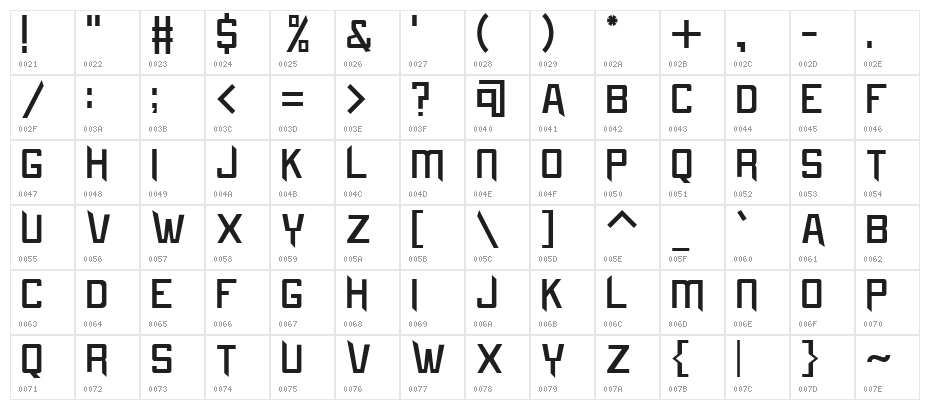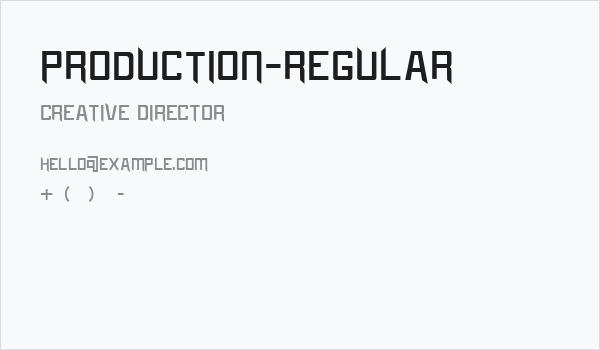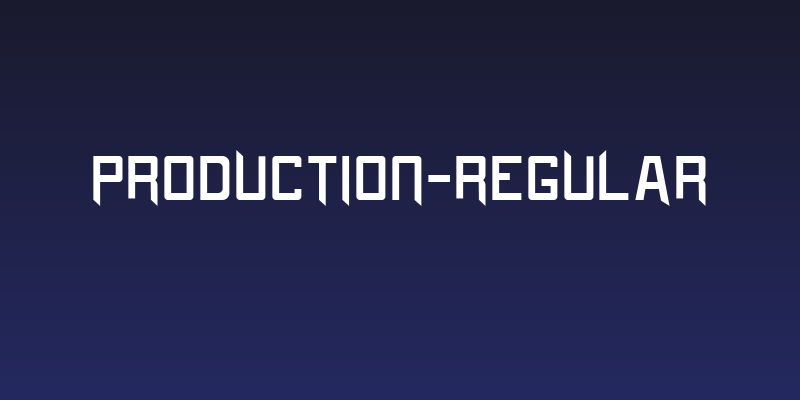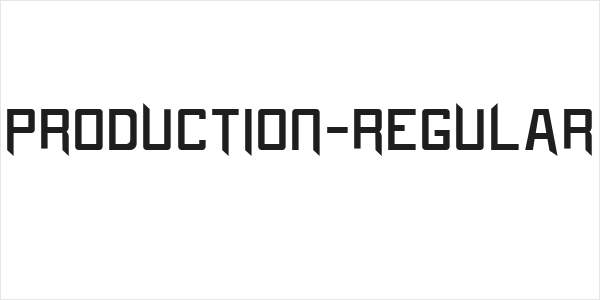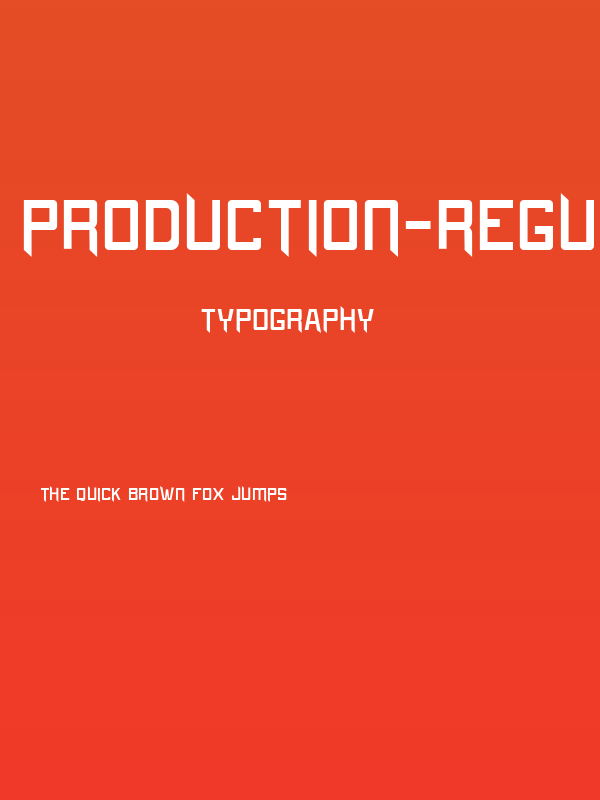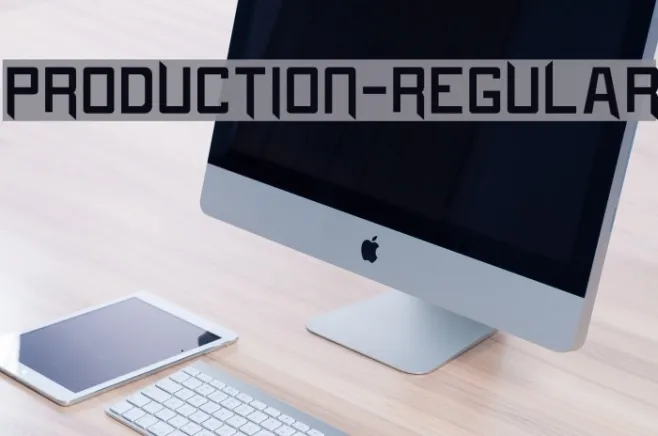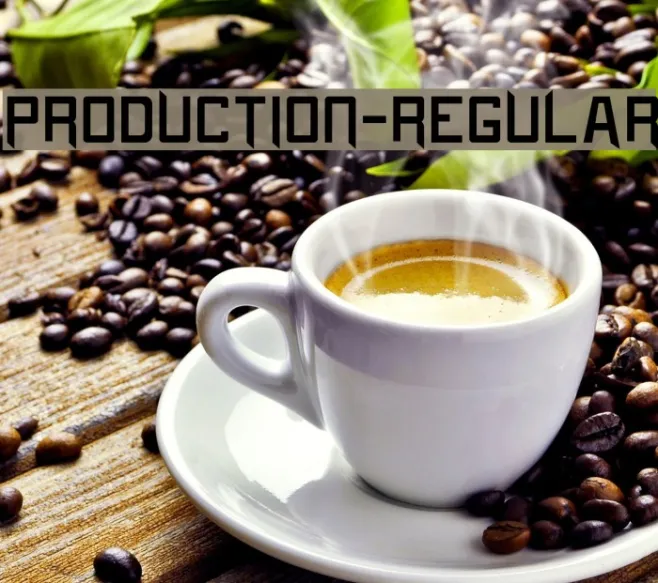
Production-Regular Font
Production-Regular Description
This font features a bold, geometric style with sharp angles and a modern aesthetic. The uppercase letters are distinct with a futuristic edge, characterized by uniform stroke widths and angular cuts. The lowercase letters maintain the same geometric precision, offering a cohesive look across different cases. Numbers and special characters are designed to match the angular theme, providing a consistent visual experience. The font's structure is clean and minimalistic, making it suitable for contemporary design projects that require a strong visual impact.